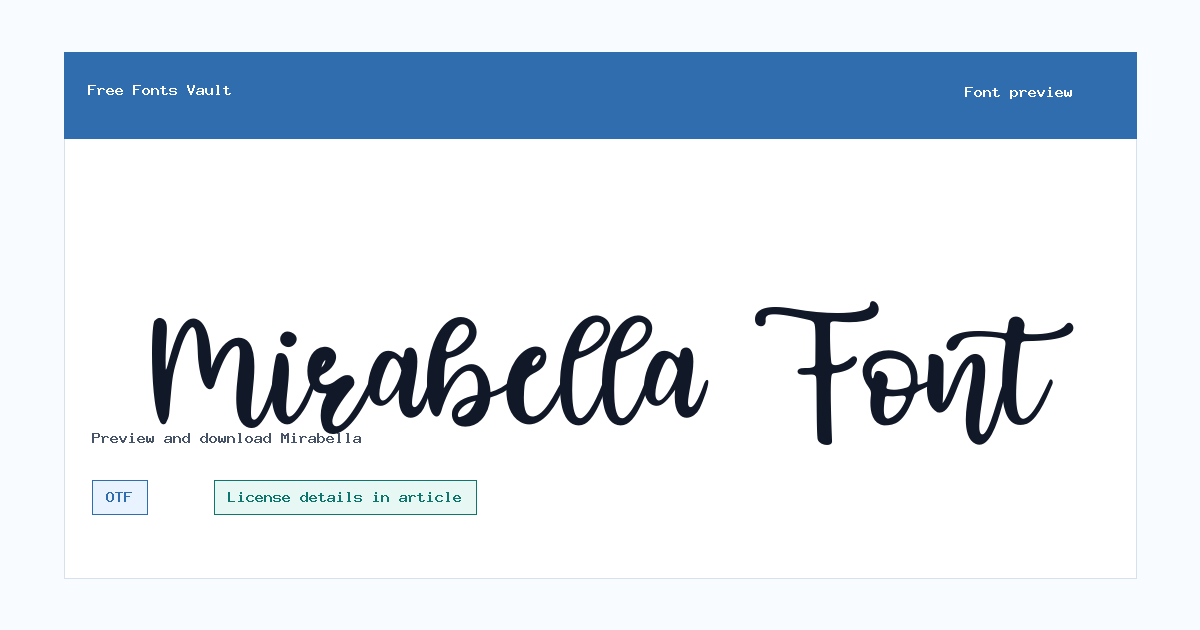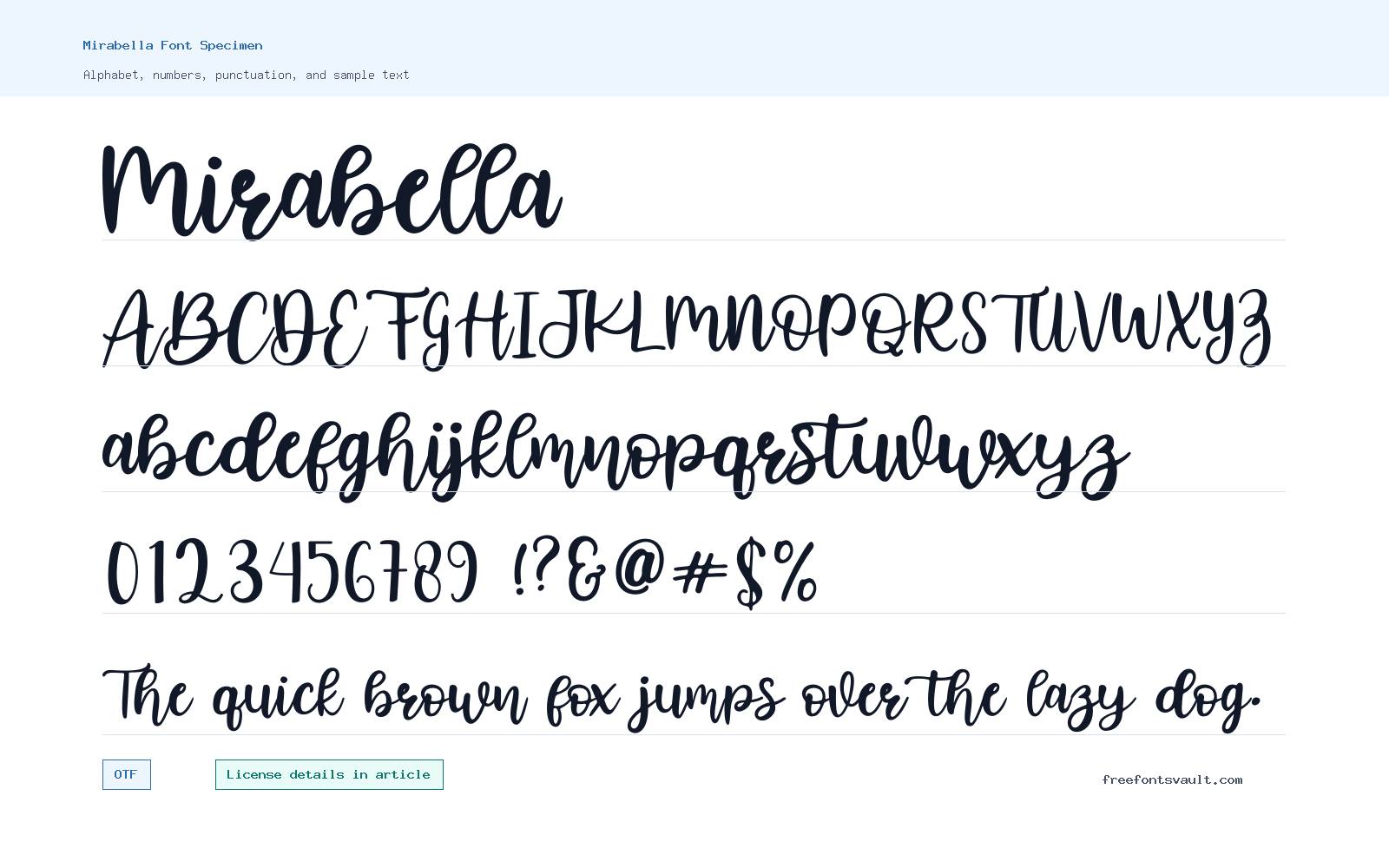
Mirabella
- Designer Fahri Rizal
Mirabella is a decorative OTF font by Fahri Rizal with a regular style for display-focused typography. It is best approached as a font for short, expressive text rather than long reading blocks.
Mirabella has the kind of personality that works best when the words are meant to be noticed. Use it for names, titles, invitations, packaging mockups, social graphics, logo drafts, craft labels, and short decorative headings. Because the family comes as a single regular OTF file, the design choice is simple: test the exact words you plan to use, check the spacing at your target size, and decide whether the font gives the right tone before using it in a final layout.
For visitors previewing Mirabella, start with a few realistic samples instead of random alphabet strings. Try a brand name, a wedding title, a product label, or a two-word headline. Look closely at uppercase letters, lowercase joins, punctuation, and number shapes if your design needs dates or prices. Decorative fonts can look strong in one word and less balanced in longer phrases, so keep line lengths short and leave enough breathing room around the text. If you need body copy, pair Mirabella with a plain serif or sans serif and let Mirabella handle only the accent text.
- Decorative display use suited to short titles, names, labels, invitations, and social graphics.
- Invitation headings, name cards, greeting designs, and event titles.
- Logo drafts, packaging mockups, product labels, quote graphics, and short social posts.
Mirabella is credited to Fahri Rizal.
Use Mirabella where a decorative title is the focus. Test it at the final size, especially if the design includes small text, long phrases, punctuation, or numbers. For cleaner layouts, combine it with a simple supporting font and avoid setting full paragraphs in Mirabella.
Is Mirabella good for body text?
Mirabella is better for short display text. For paragraphs, menus, captions, or small interface text, use a simpler font and keep Mirabella for headings or accents.
Who designed Mirabella?
The font is credited to Fahri Rizal.